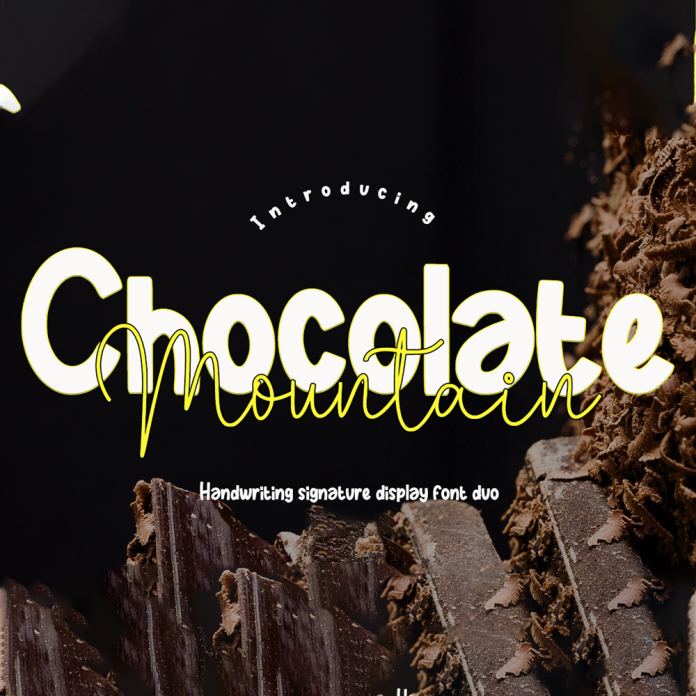
The Chocolate Mountain Font Duo is a premium font design that includes both a brush and script style. The brush style offers a bold and textured look, while the script style is elegant and flowing. This unique font duo is perfect for creating eye-catching designs for branding, logos, packaging, and more.